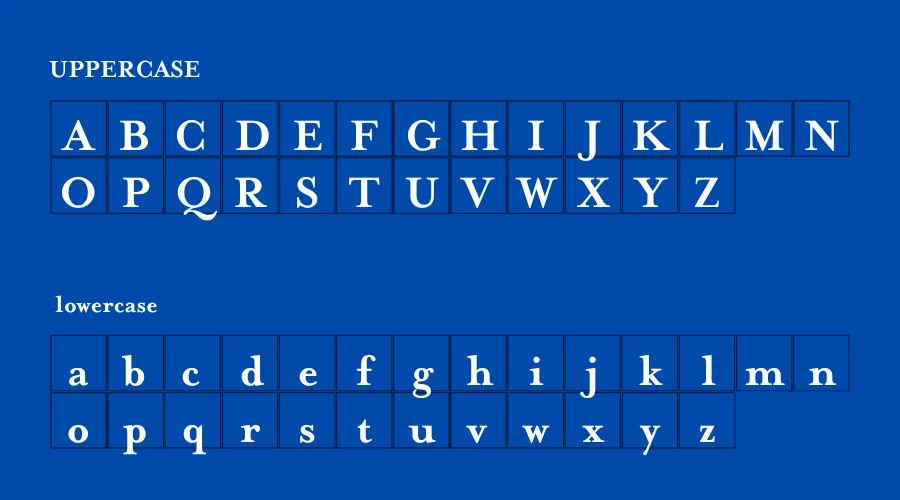
About Mrs Eaves Font
Mrs Eaves Font was developed by a notable typographic designer Zuzana Licko. This font is under the transitional serif typeface family and was published in 1996. It has a neat and eye-catching surface look for visitors.
This font was issued through Emigre, It is a style foundry hubby Rudy VanderLans and licko. The letter 'a' and 'g' are double-storied. The Mrs Eves Style has outstanding copy-and-paste ability. You can copy any text from another site and paste it into your projects.